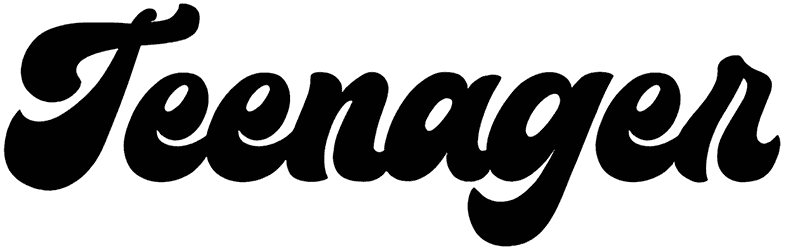
Teenager Font
Teenager font will let your imagination move further and evoke a vintage vibe of sweet times. You can include this groovy font in personal projects that call for an A-Z font with a dreamy look; album covers, invitations,…
Teenager font will let your imagination move further and evoke a vintage vibe of sweet times. You can include this groovy font in personal projects that call for an A-Z font with a dreamy look; album covers, invitations, quotes, movie titles, posters, etc.